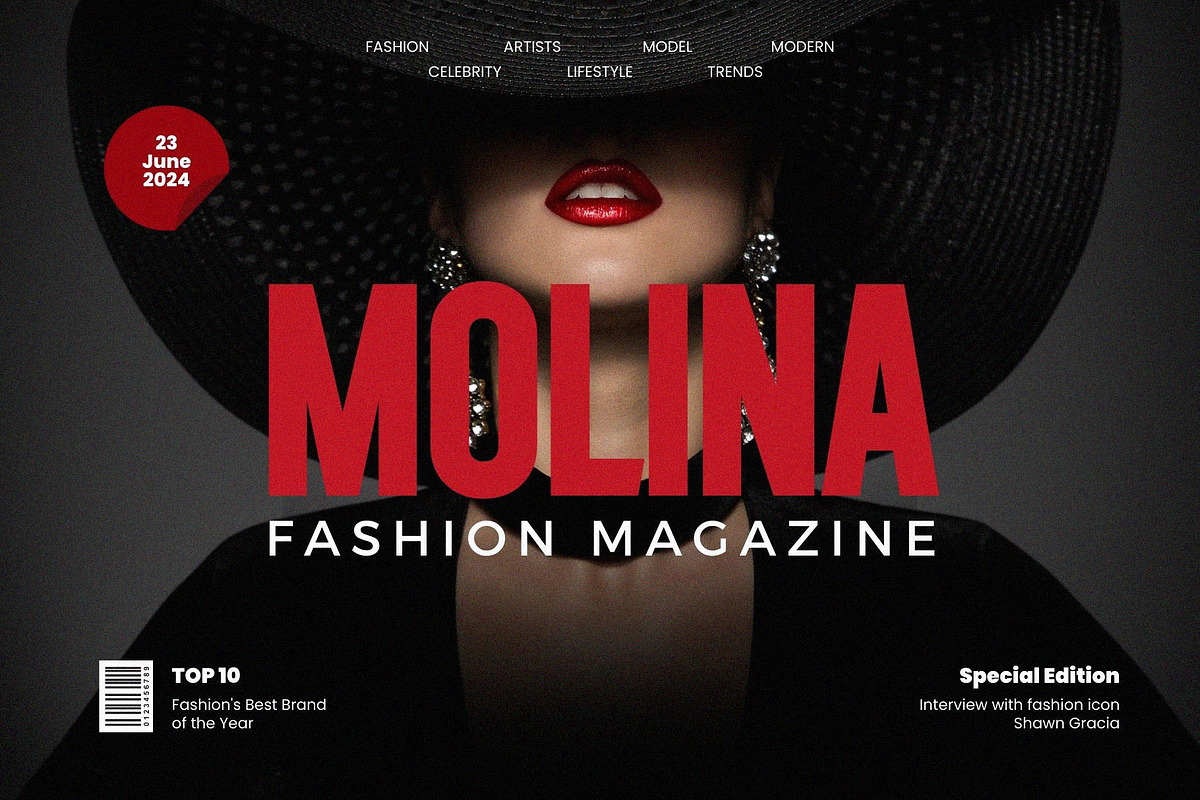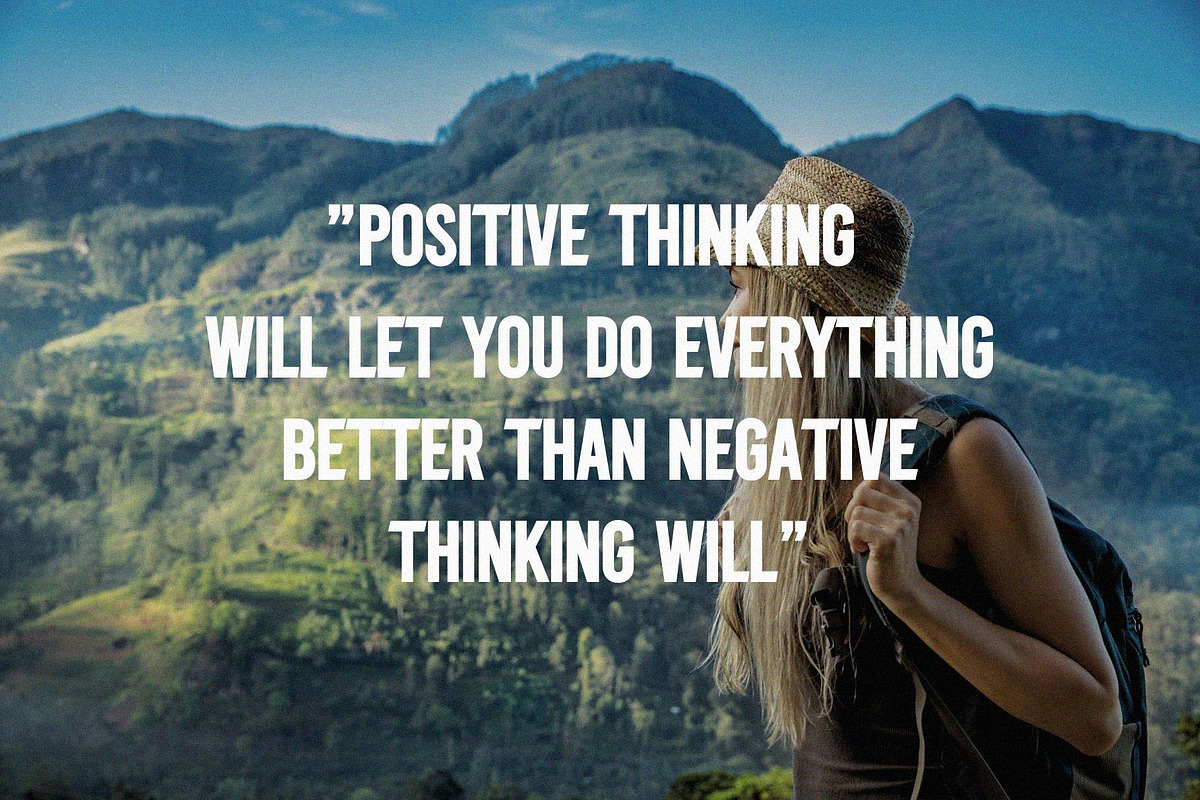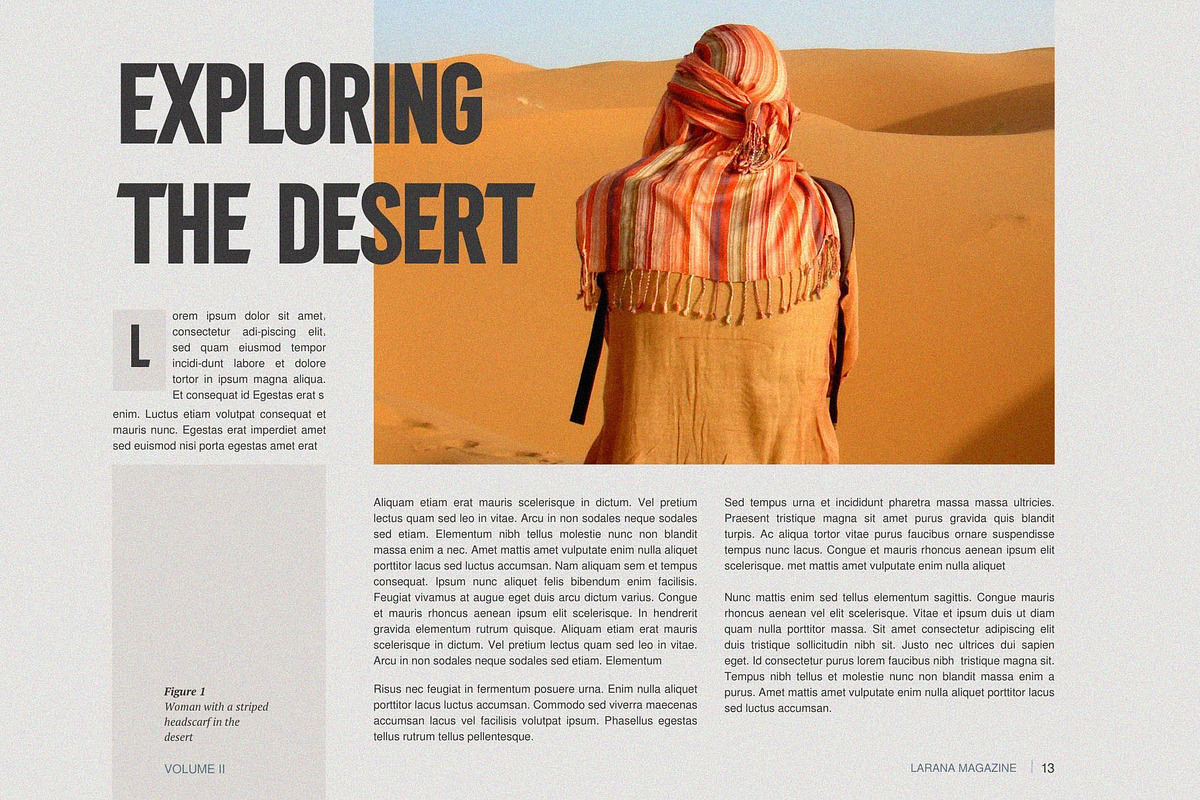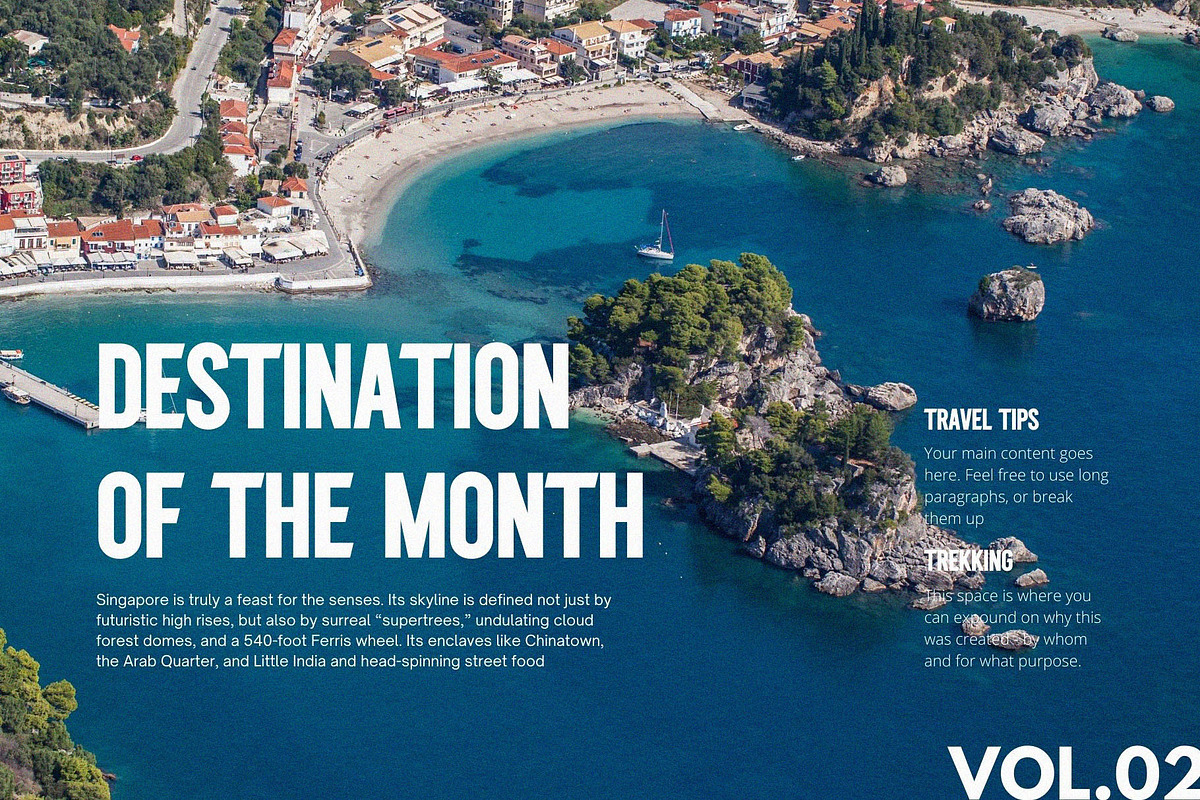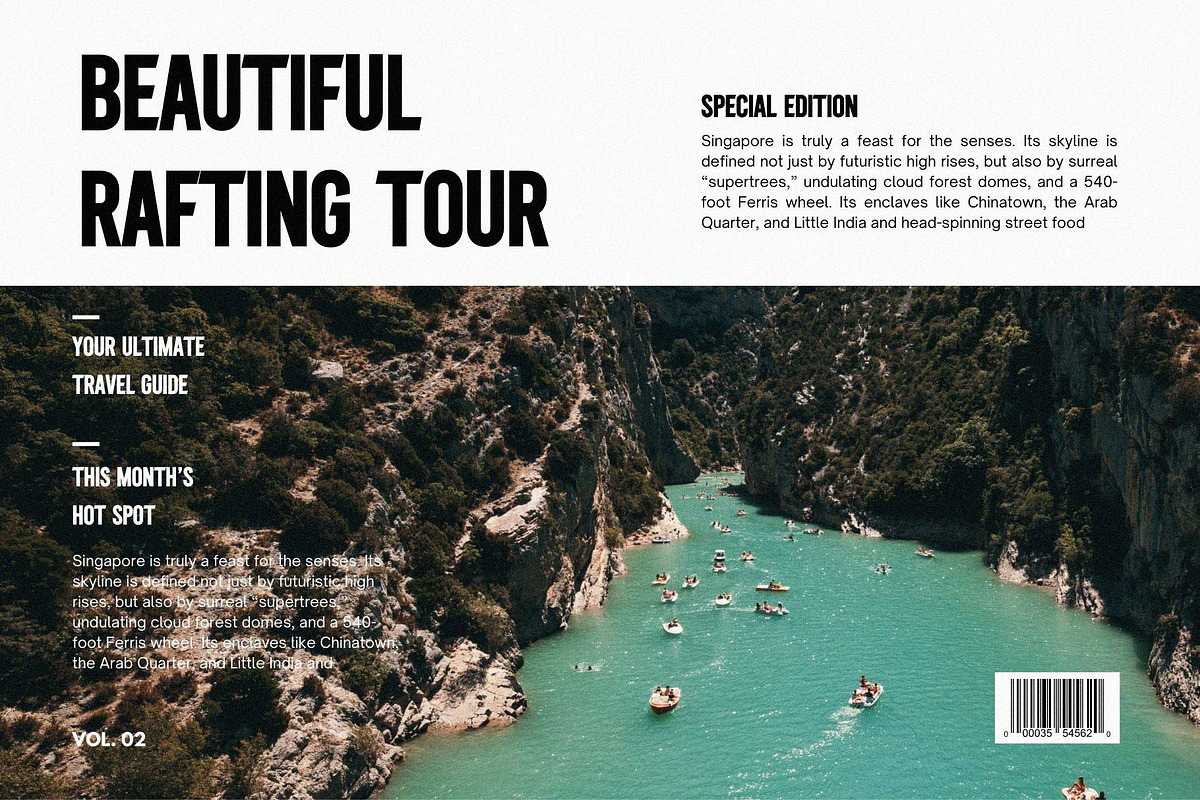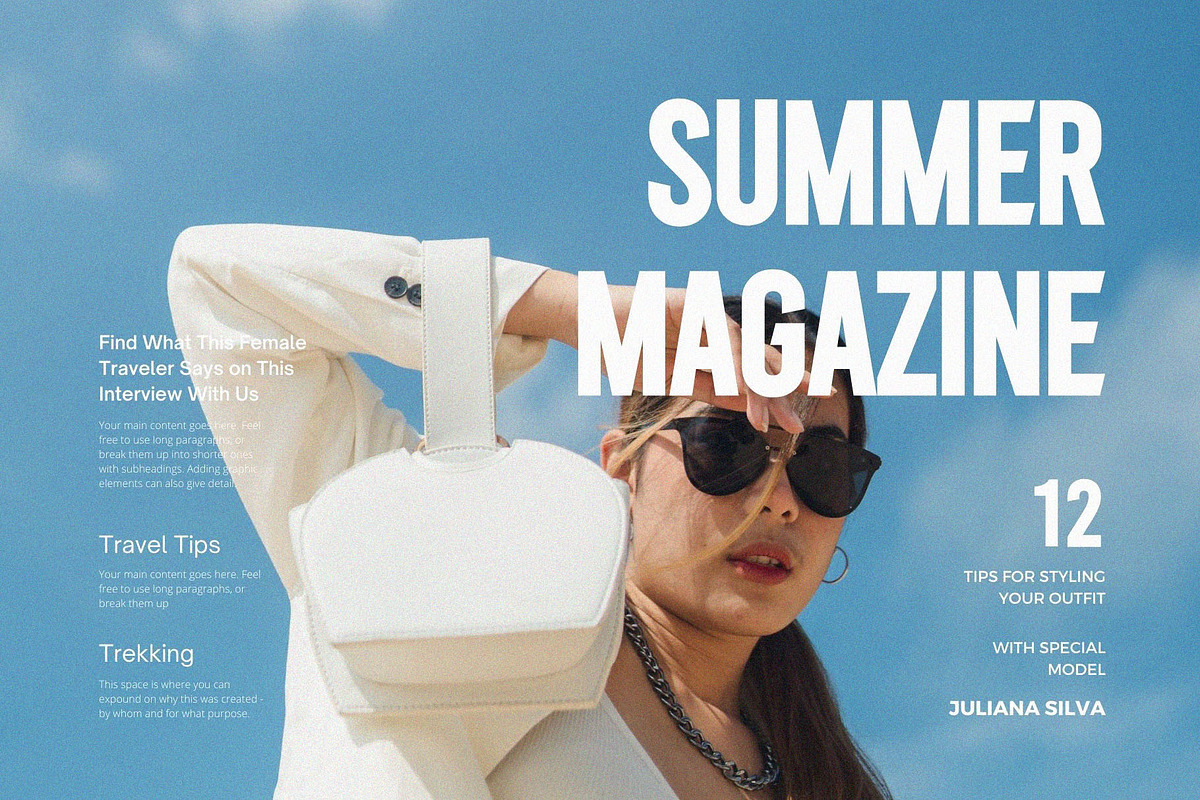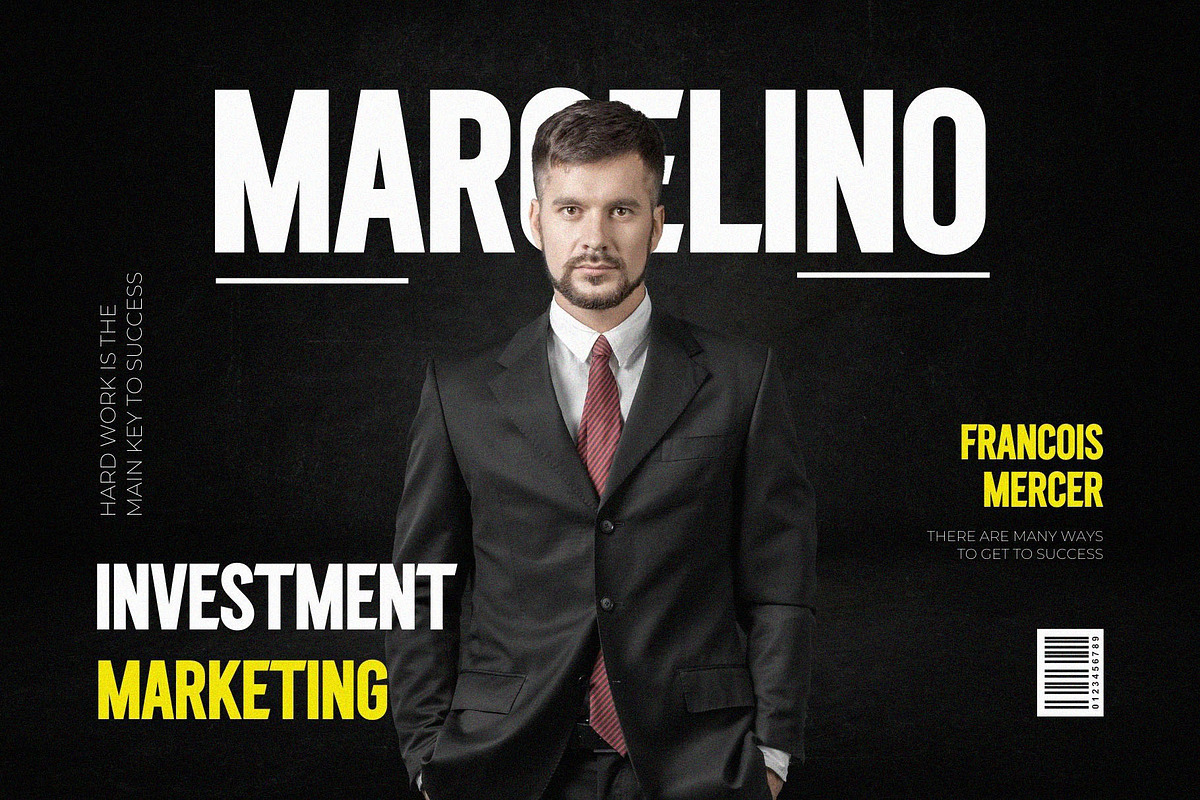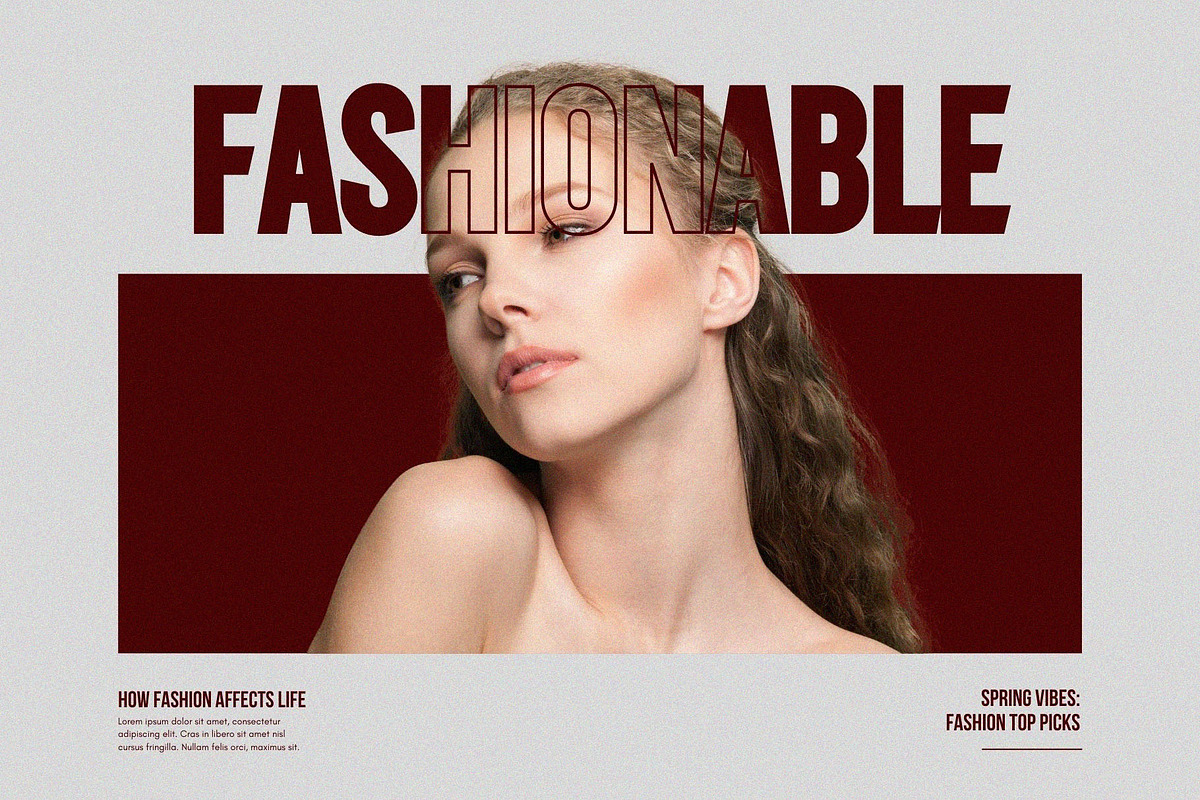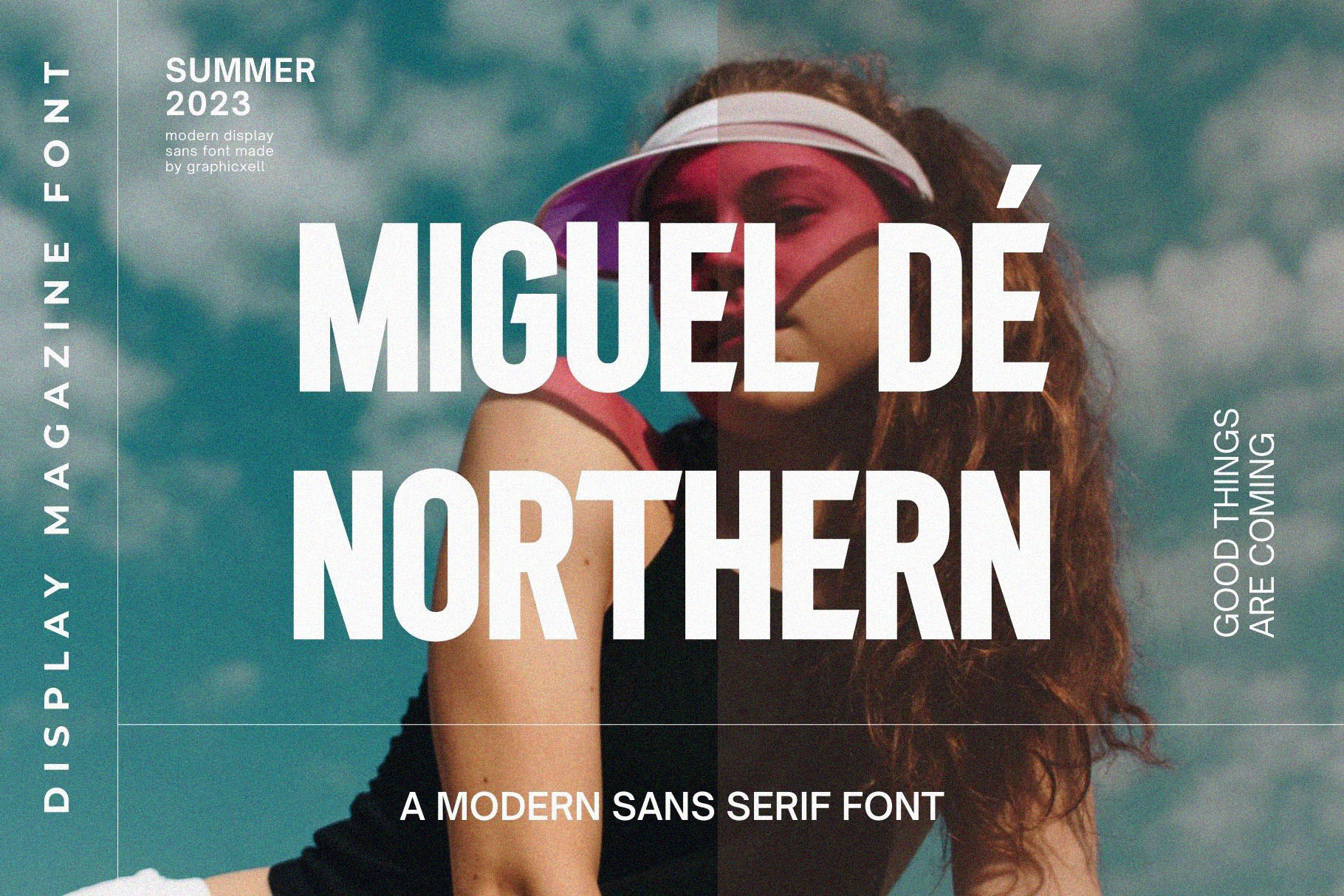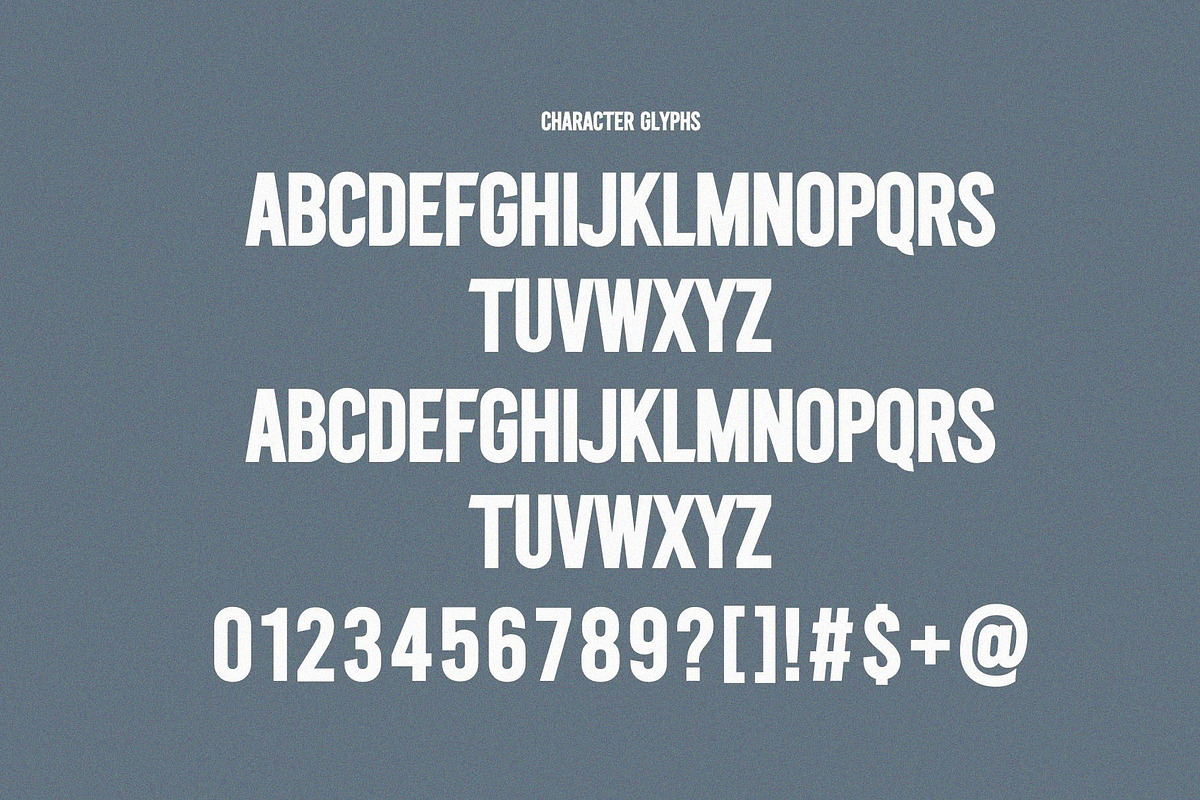
Miguel de Northern Bold Sans Font Ty
Miguel de Northern Bold Sans Font Typeface inspired by the famous minimalist logo perfect for the purposes of designing templates, brochures, videos, advertising branding, logos, invitation, layout design, elegant crafting, beauty design and other